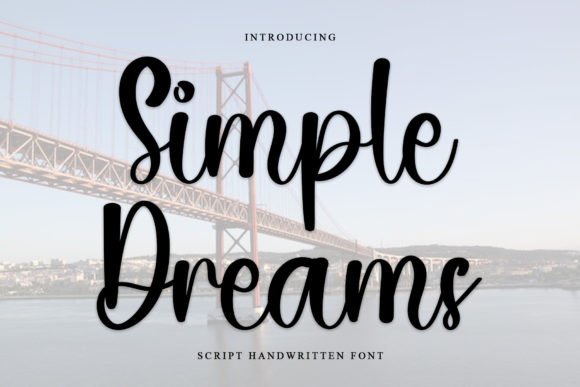
Journey into the realm of whimsical aesthetics with Simple Dreams Font, a captivating script typeface designed to ignite your creativity. Its graceful letterforms, adorned with warm, earthy tones, evoke a sense of coziness and nostalgia, making it the perfect font for capturing the essence of autumn.
Imagine the rustling of fallen leaves, the crispness of the autumn air, and the vibrant hues of the changing season. Simple Dreams Font encapsulates these elements, bringing a touch of whimsy and charm to your designs. Whether you're creating autumn-themed projects, heartfelt greetings, or enchanting branding, this font adds a unique personality that speaks to the heart.
With Simple Dreams Font, you'll discover endless possibilities for expressing your creativity. Its enchanting style lends itself beautifully to nature-inspired branding, where the font's organic flow mimics the fluidity of a gentle river or the grandeur of towering trees. It's also an ideal choice for wedding invitations, where its romantic undertones add a touch of elegance and sophistication.
But Simple Dreams Font is not just limited to seasonal designs. Its versatility shines through in various applications, from eye-catching headlines to captivating social media posts. Its warm, inviting nature draws attention, making it perfect for marketing materials, product packaging, and website designs.
So, embark on a creative adventure with Simple Dreams Font and let your designs blossom with warmth and charm. Its delightful personality will captivate audiences, leaving a lasting impression that speaks volumes about your brand's unique identity.